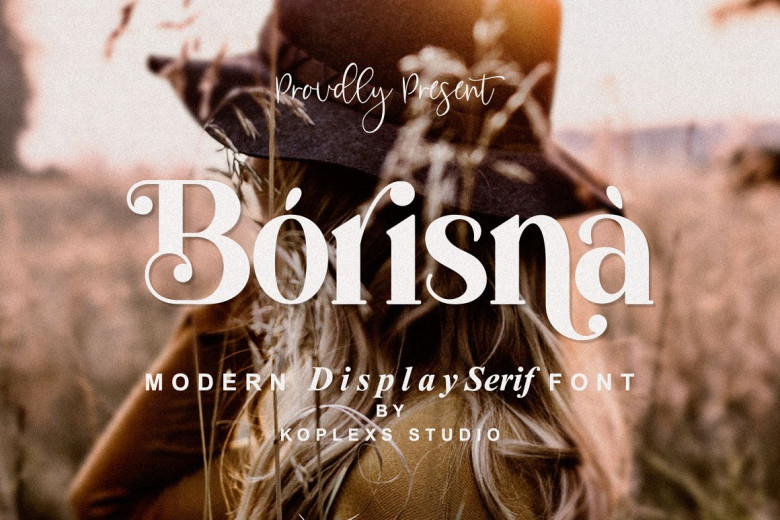
Borisna Font
Borisna The 1980’s and 1990’s are becoming increasingly popular today, so we created written art work referencing them in a modern retro style using Borisna writing style which we find elegant and versatile when applied in design styles with retro modern influences.
Borisna font offers an elegant, classy and feminine collection of serif fonts perfect for branding and design purposes. OpenType allows you to select from various alternate letters, ligatures, and characters to achieve the look that best fits you. Choose the letters that suit you for creating the desired effect.
Borisna Serif Font